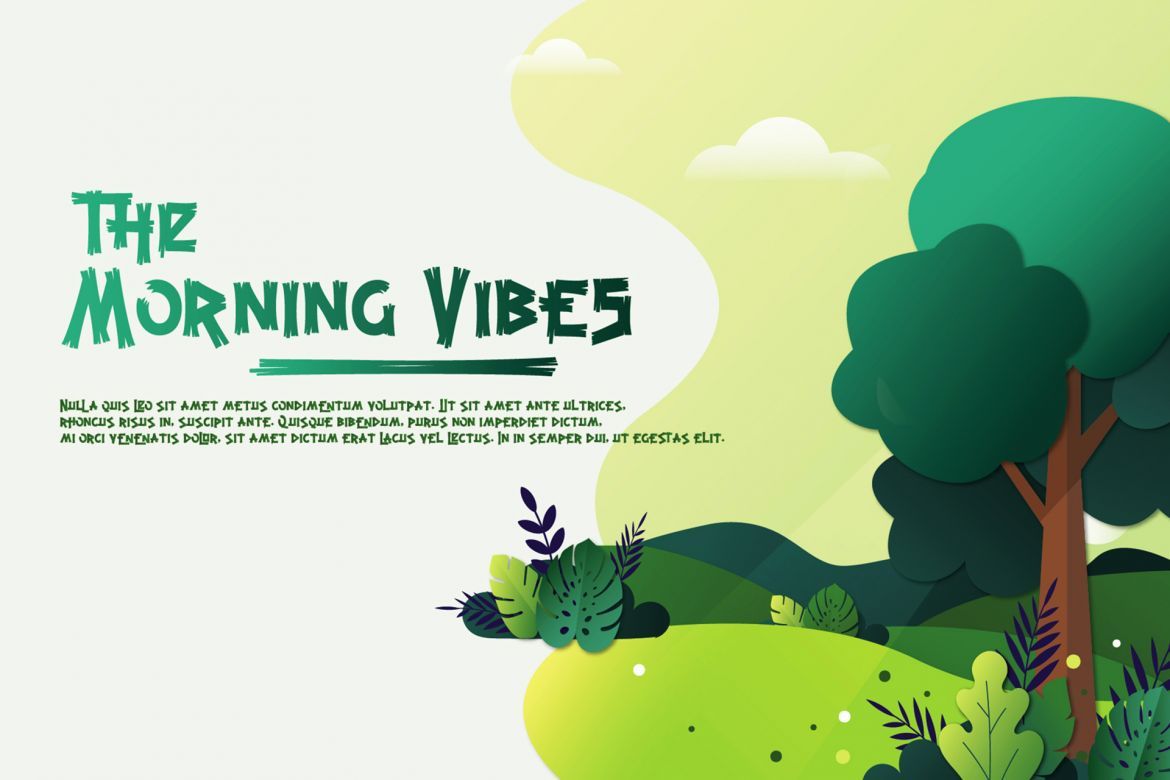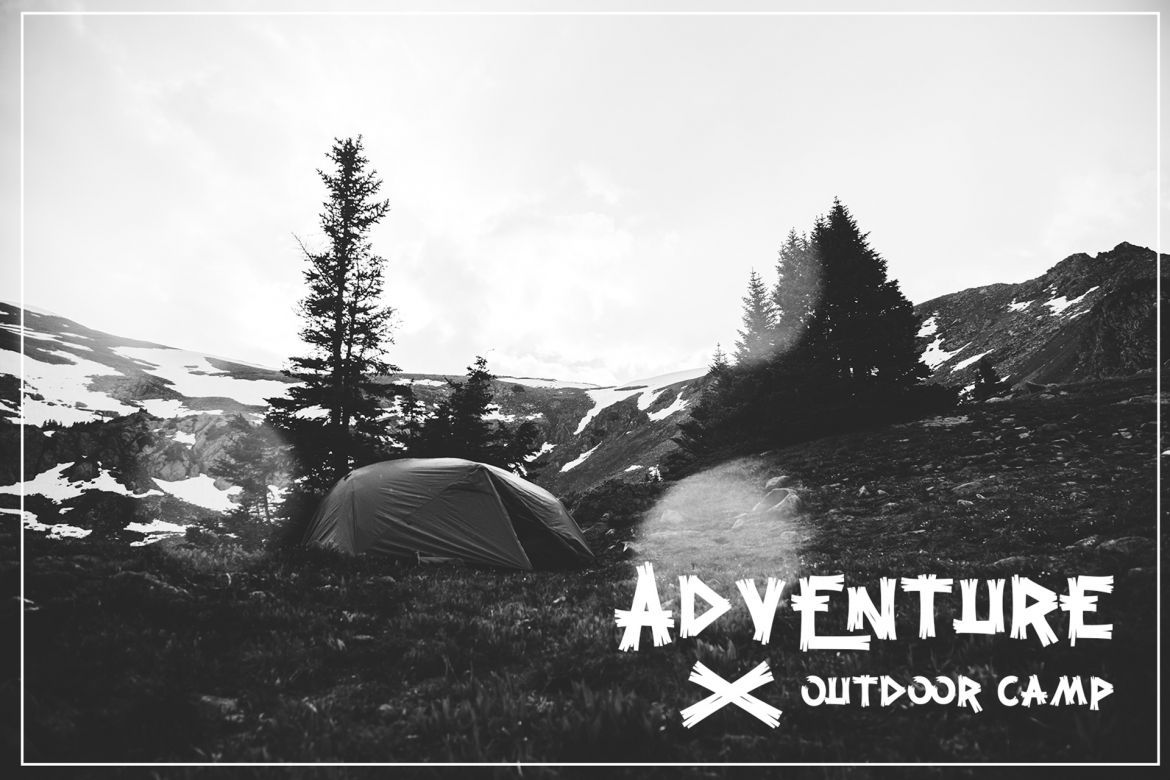
Grootten Beast Cartoon Font
-- Fun / Original / Decorative --
Grootten Beast font is a decorative font family Inspired by kids book cover design, we try to make it more decorative so it's can useful for any purpose. it's perfect for you to show your design or product in professional way.
Grootten Beast font is works great in any branding, logos, magazines, films, poster, flyer, sign board, magazine,etc
• original hand drawn
• pefect for decoration design theme
• uniqe style